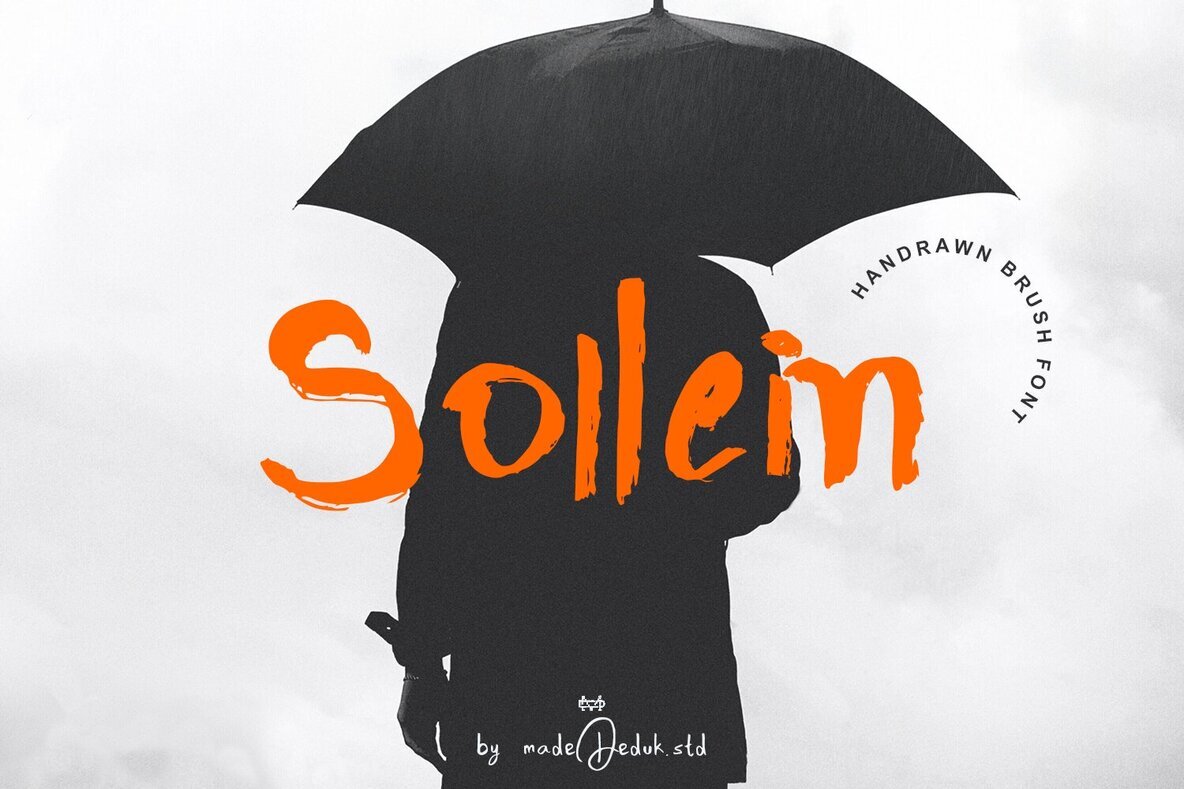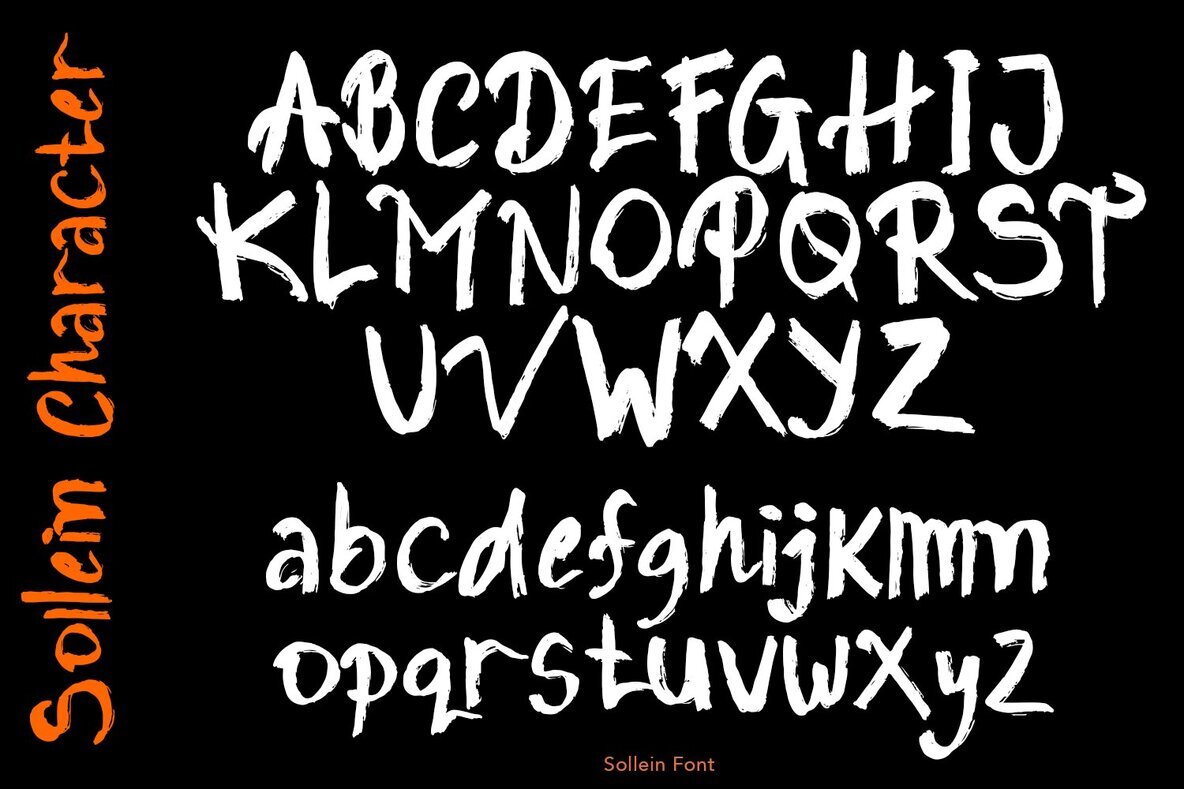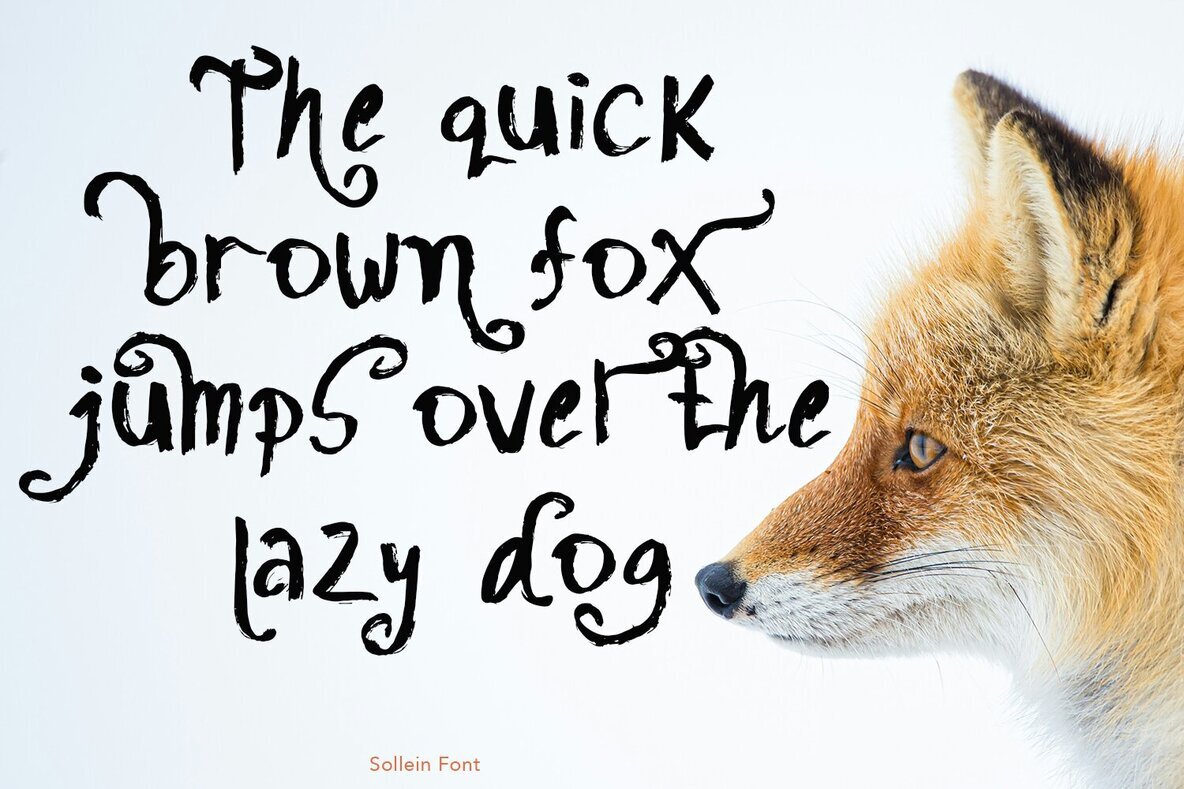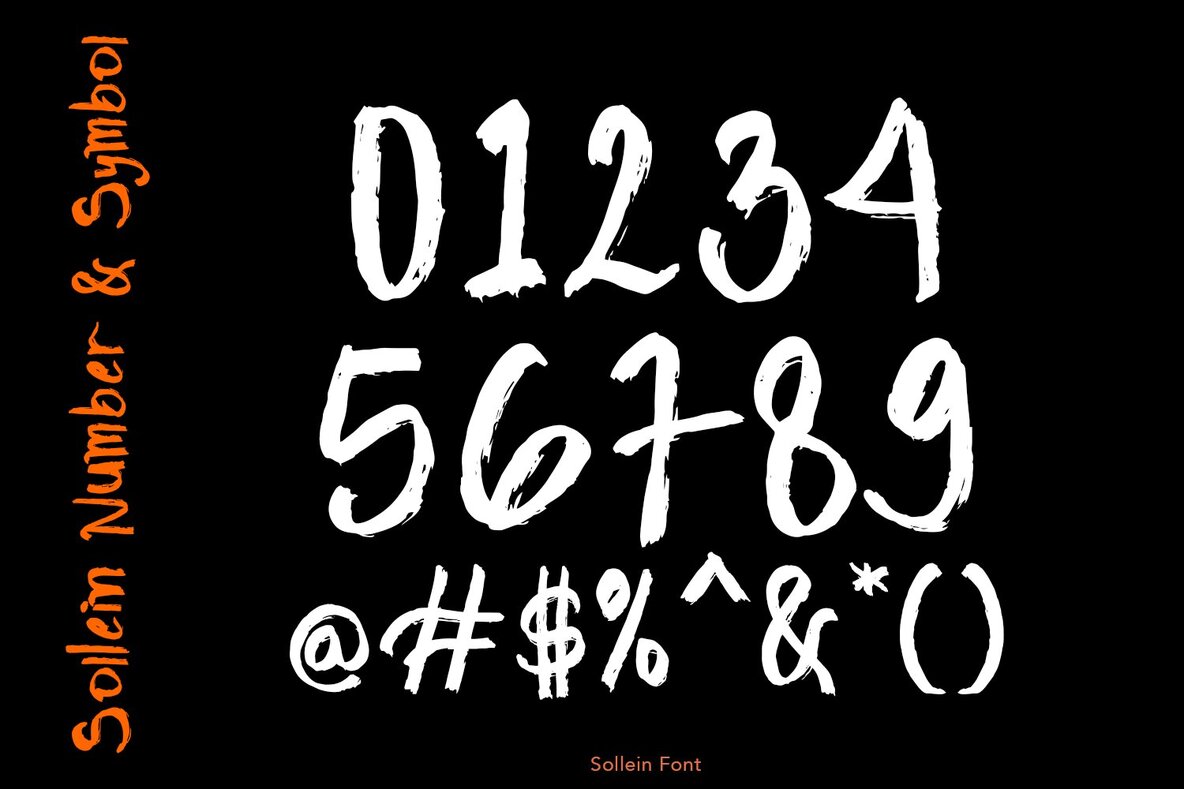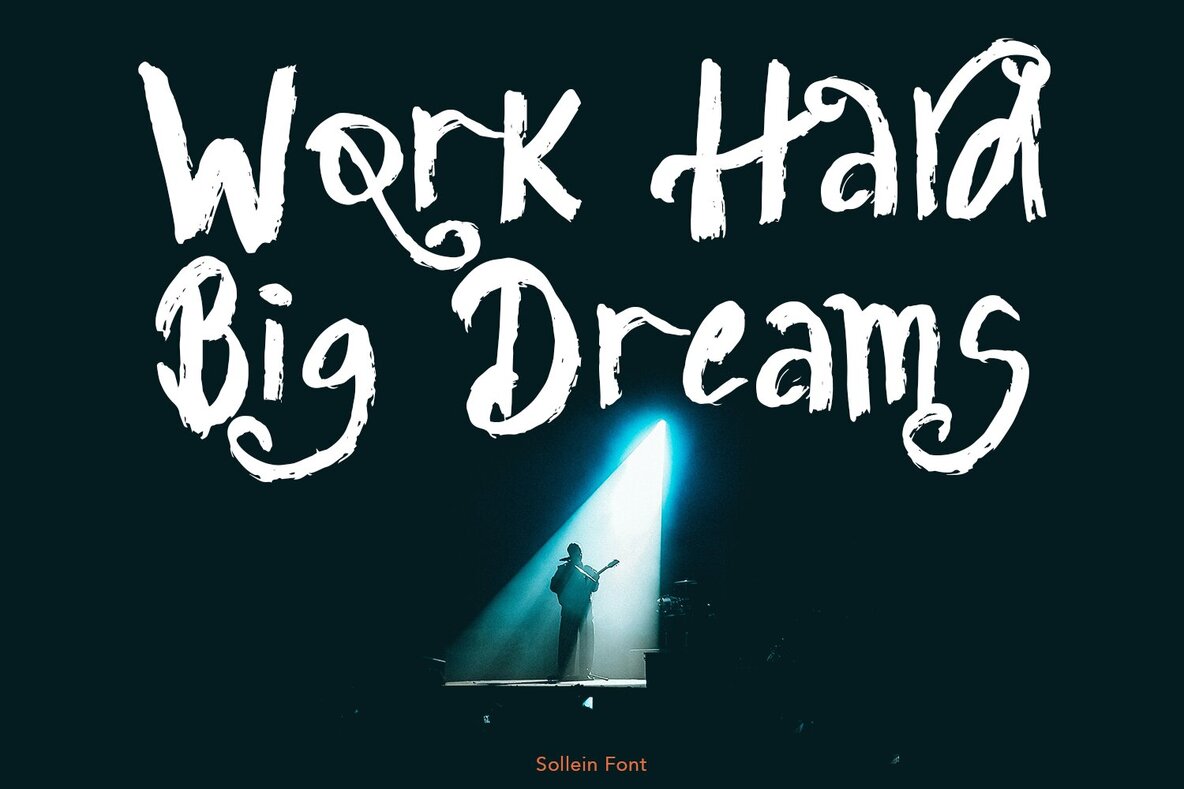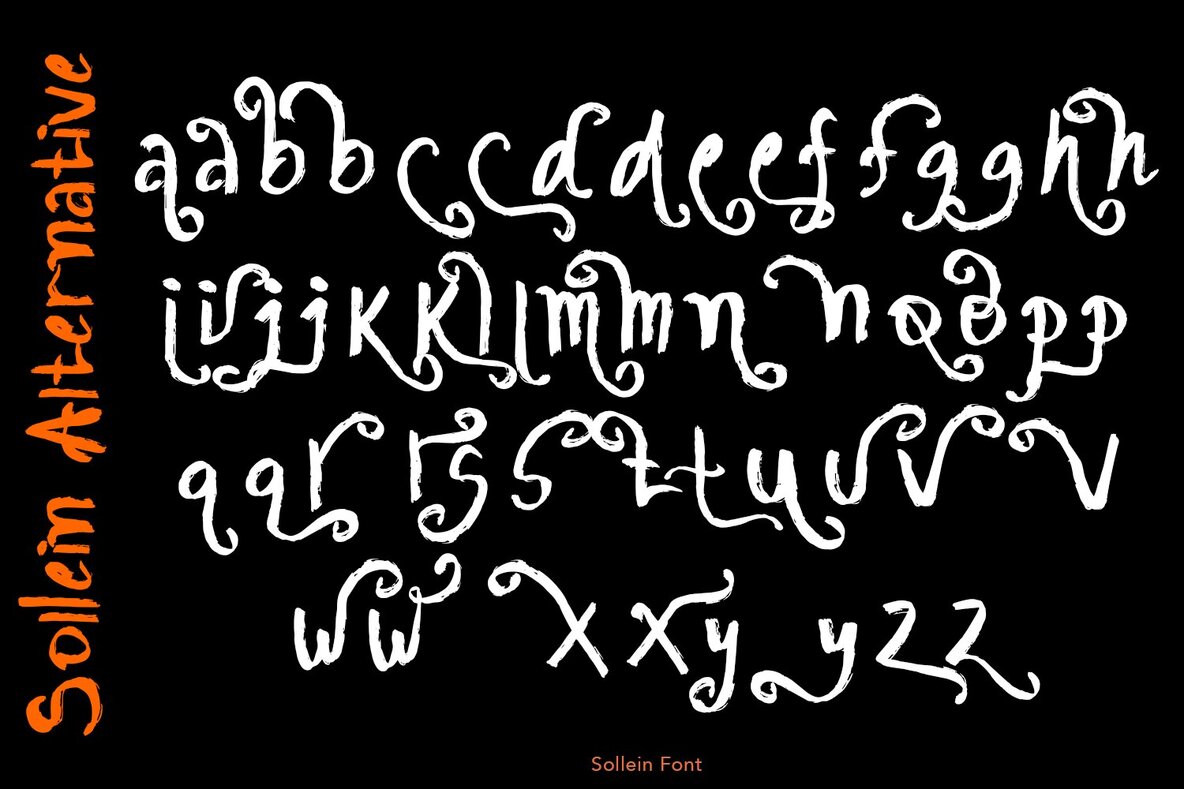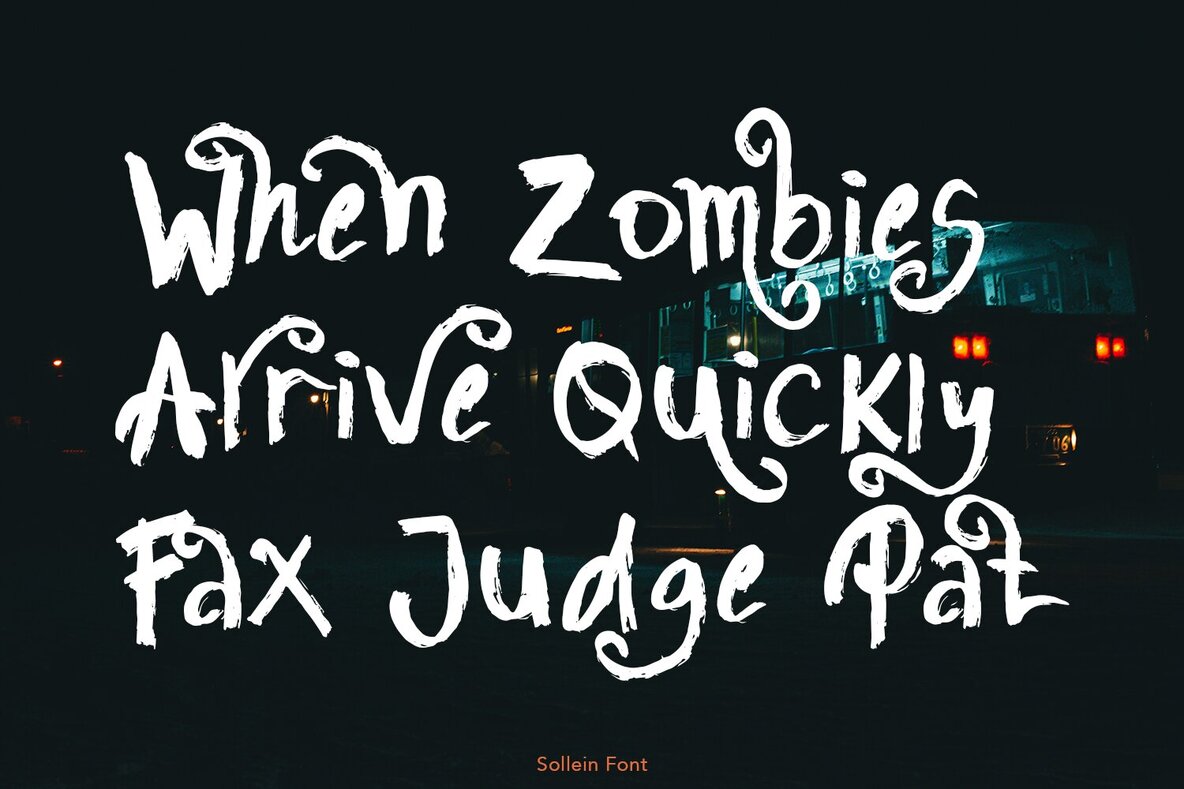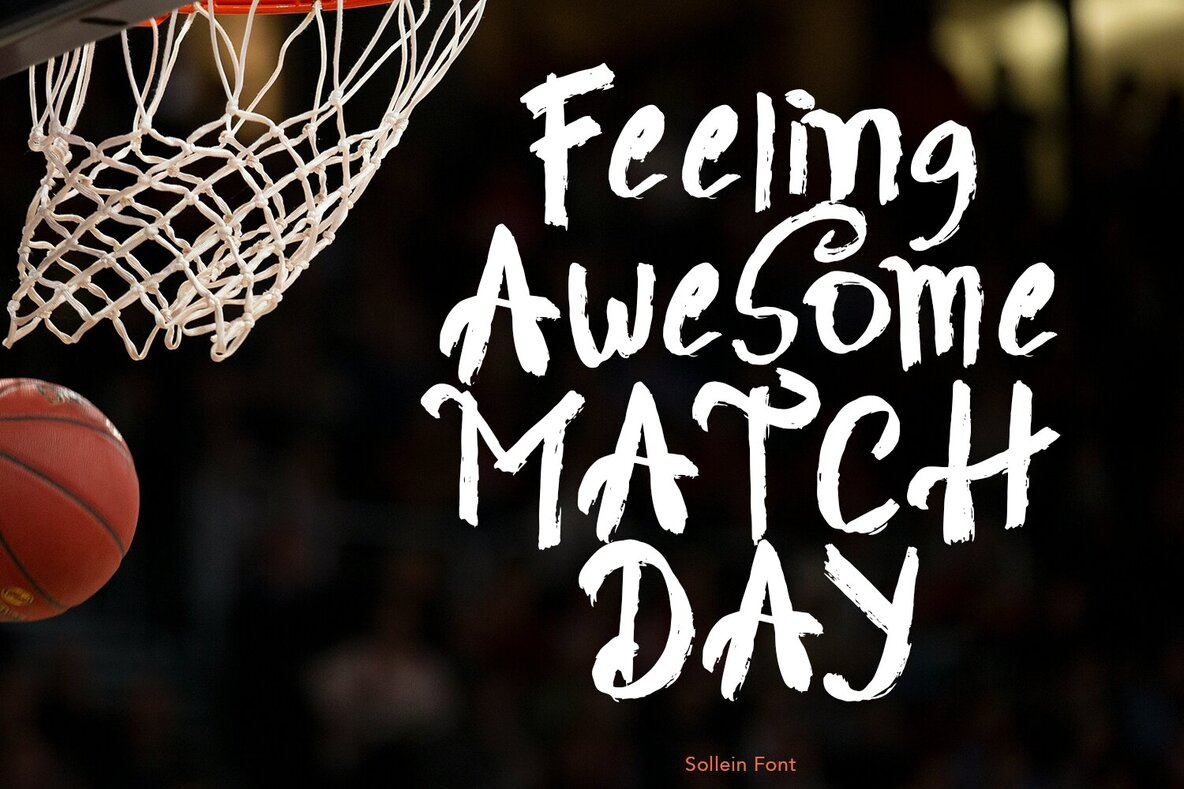
Sollein Font
Discover Sollein, the ultimate choice for a brush font that adds a genuine handcrafted touch to your designs. Bursting with alternative characters, Sollein is ideal for bringing artistry to your projects. It's perfect for poster design, book covers, and fashion layouts, making it versatile for various design needs.Sollein: A Realistic Brush Font
Versatile Uses